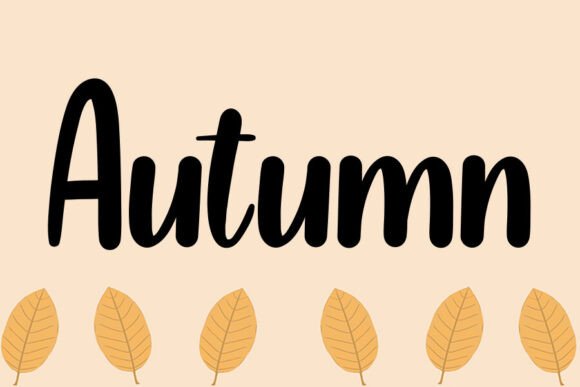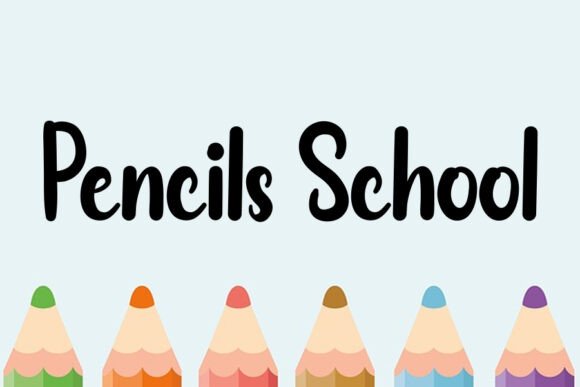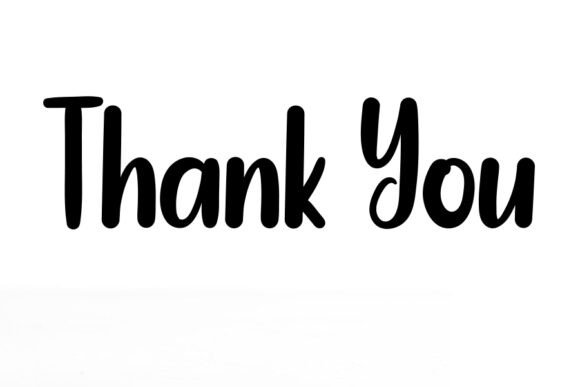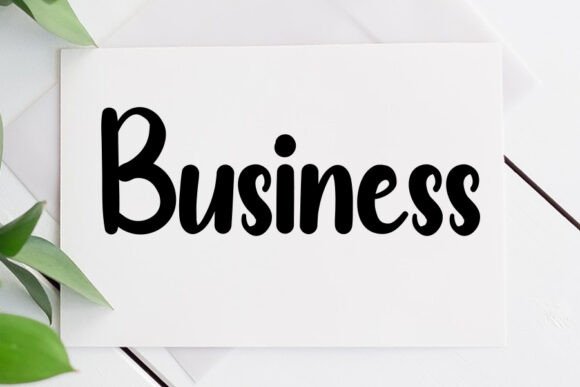
Introducing Daily Font: The Sweet and Cursive Handwritten Font for Your Design Needs
Are you looking for a font that can add a touch of elegance and romance to your designs? Look no further than Daily Font, a sweet and cursive handwritten font that is perfect for a variety of design projects. In this article, we’ll take a closer look at Daily Font, its features, and how you can use it to elevate your designs.
What is Daily Font?
Daily Font is a beautiful, handwritten font that is designed to add a touch of whimsy and romance to your designs. Its gentle curves and flowing lines make it perfect for creating elegant and sophisticated designs that are sure to impress. Whether you’re working on a branding project, designing a logo, or creating wedding materials, Daily Font is the perfect choice.
Features of Daily Font
So, what makes Daily Font so special? Here are just a few of its key features:
- Sweet and cursive: Daily Font has a sweet and cursive style that is perfect for creating elegant and sophisticated designs.
- Handwritten: This font has a handwritten feel that gives it a personal and unique touch.
- Versatile: Daily Font can be used for a wide range of design projects, from branding and logos to wedding materials and greeting cards.
- Elegant and casual: This font strikes the perfect balance between elegance and casualness, making it perfect for designs that need to be both sophisticated and approachable.
Use Cases for Daily Font
So, how can you use Daily Font in your designs? Here are just a few ideas to get you started:
- Branding: Use Daily Font to create a logo or brand identity that is elegant and sophisticated.
- Wedding materials: This font is perfect for creating wedding invitations, programs, and other materials that need to be elegant and romantic.
- Greeting cards: Daily Font is a great choice for creating greeting cards that are personal and heartfelt.
- Fashion and lookbooks: Use this font to create fashion designs and lookbooks that are stylish and sophisticated.
- Marketing promotions: Daily Font can be used to create marketing materials that are elegant and eye-catching.
Tips for Using Daily Font
Here are a few tips for using Daily Font in your designs:
- Pair it with other fonts: Daily Font can be paired with other fonts to create a unique and interesting design.
- Experiment with colors: This font looks great in a variety of colors, so don’t be afraid to experiment and find the perfect hue for your design.
- Use it sparingly: While Daily Font is a beautiful font, it can be overwhelming if used too much. Use it sparingly to create a design that is elegant and sophisticated.
In conclusion, Daily Font is a beautiful and versatile font that is perfect for a wide range of design projects. Its sweet and cursive style, combined with its handwritten feel, make it a great choice for designers who want to create elegant and sophisticated designs. Whether you’re working on a branding project, designing a logo, or creating wedding materials, Daily Font is the perfect choice. So why not give it a try and see how it can elevate your designs?